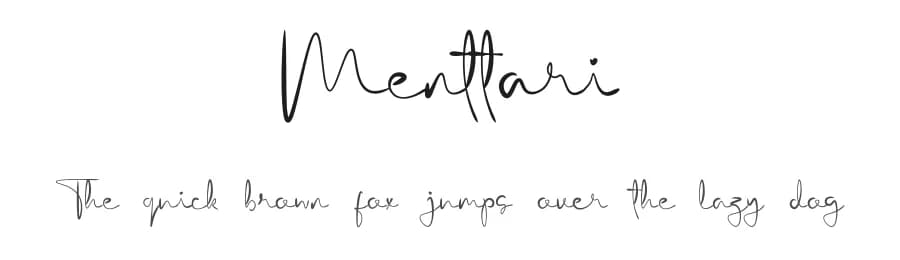
About Menttari Font
Menttari Font is a script font that shines as a display or heading face. Pair it with a clean sans-serif or serif font for body text β the contrast creates a clear hierarchy while the two styles stay balanced and easy to read.
Menttari Font